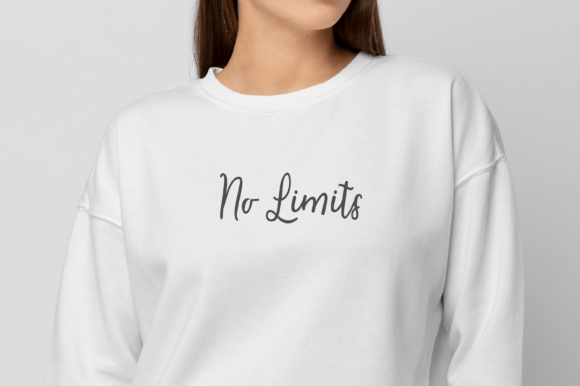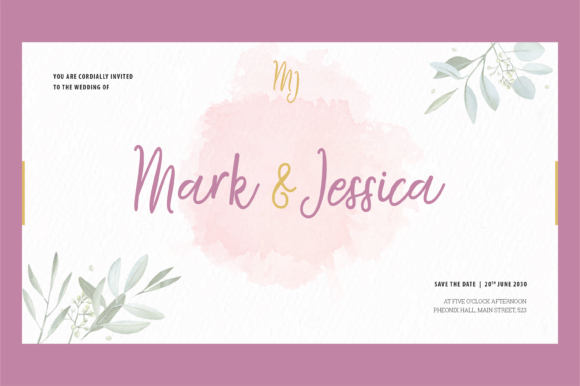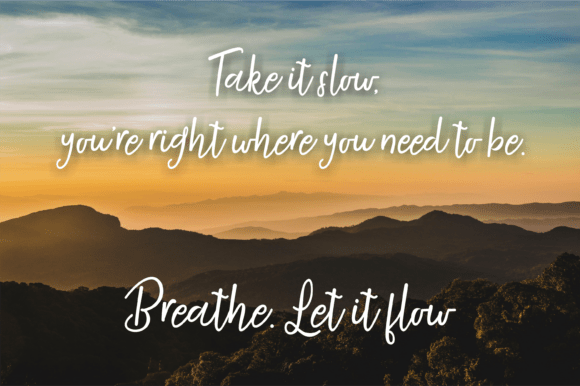
Introduction to Smileyscript Font
Smiley Script typeface is a charming handwritten script font that captures a sense of warmth, friendliness, and natural flow in every stroke.
Its smooth, rounded letterforms are designed with a balanced rhythm, creating a handwritten elegance that feels approachable yet stylish The subtle strokes provide just enough variation to feel authentic, while maintaining clarity and readability across different sizes.